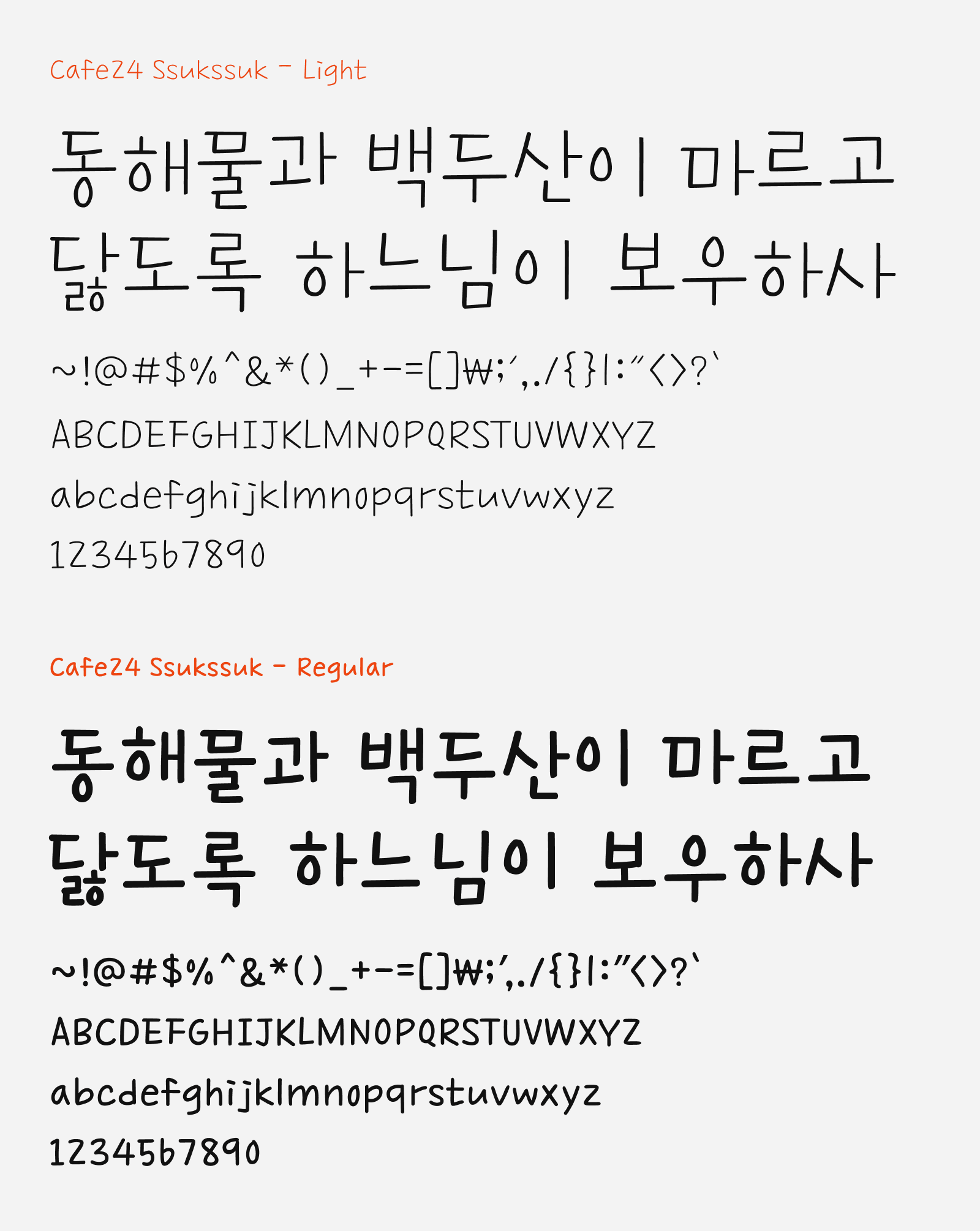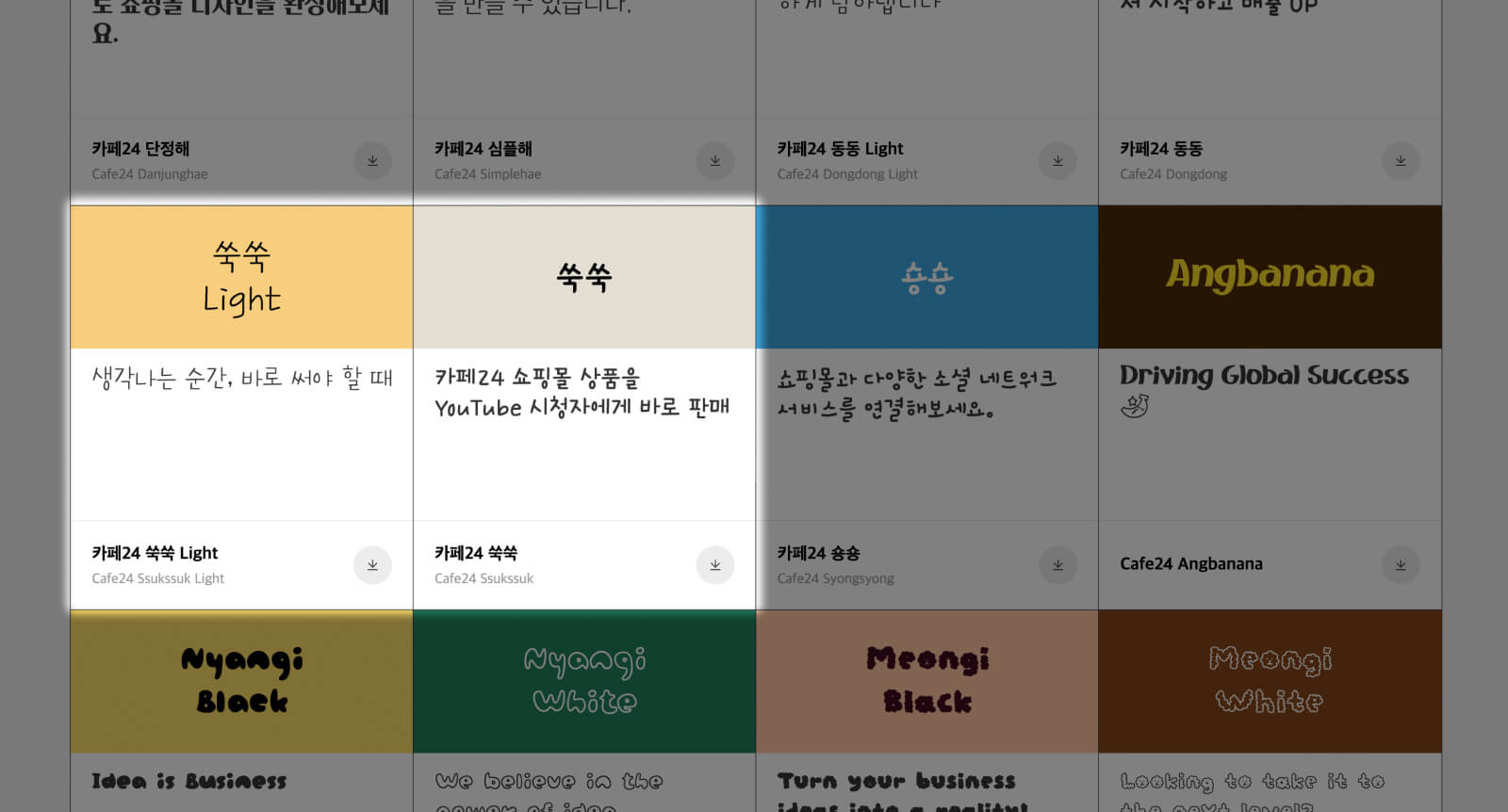
Cafe24 Ssukssuk
Cafe24 Ssukssuk (카페24 쑥쑥) is a handwriting style free-to-download Korean font that comes with two weights. It was another handwriting font from Cafe24, but what differentiates from the other ones is the handwriting style and feel. The characters’s of Cafe24 Ssukssuk are primarily constructed with straight lines and bigger variation in uneven character baseline, giving a strong emulation of fast handwriting. However, the characters are still sitting straight up without the natural slanting which is quite common in handwriting font.
The two weights I mentioned earlier was the Light and the Regular version, providing the basic font weight pairing for visual contrast. Personally I think the Korean characters are not so easy to read, but the Latin characters are very readable. You may consider using this font for expressing that unique design personality. You can download and use this font for free for any personal and commercial projects, as this font is released under SIL Open Font License.